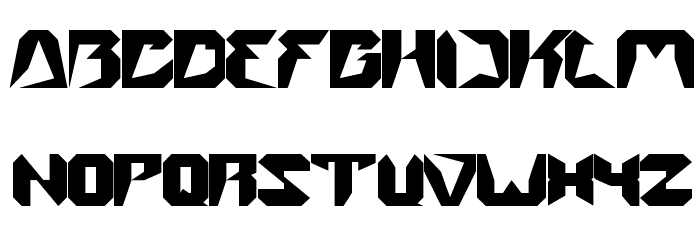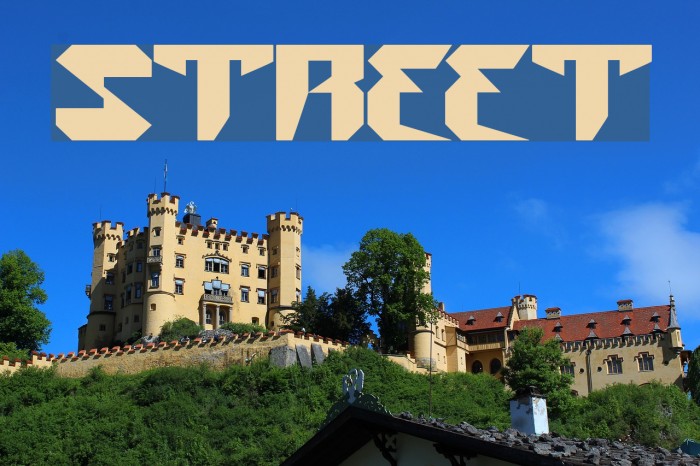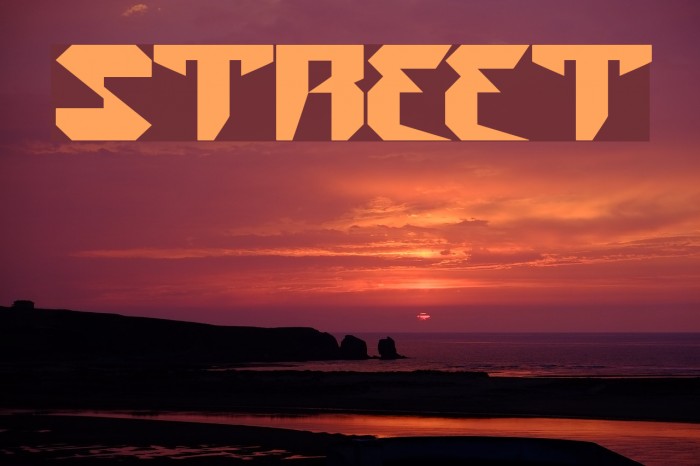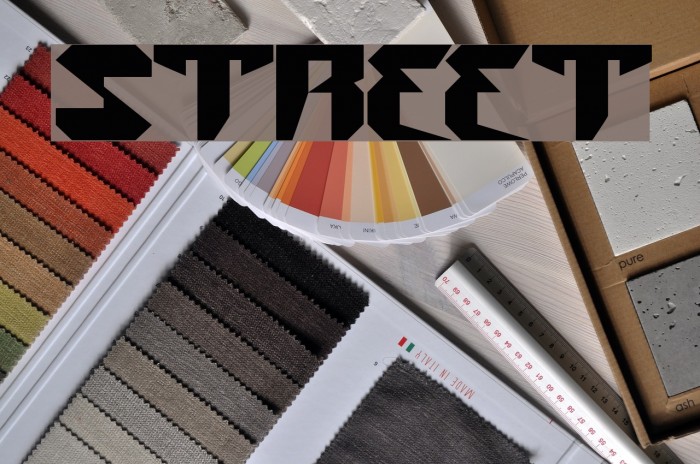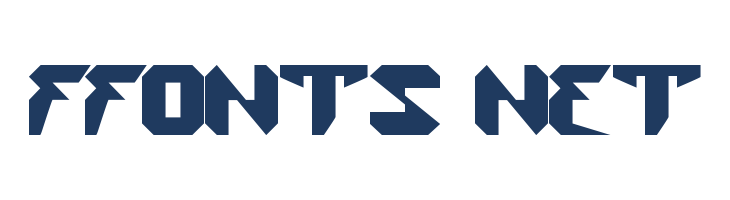
street Font
This font features a bold and angular design, characterized by sharp edges and geometric shapes. The letters are constructed with a futuristic and aggressive style, making them stand out with a strong visual impact. The uppercase characters are particularly striking, with each letter exhibiting a unique form that maintains consistency across the alphabet. The font's design is reminiscent of street art or graffiti, lending it a rebellious and edgy feel. The overall appearance is dynamic and energetic, suitable for projects that require a bold statement.
A bold, angular font with a futuristic and edgy style.
- Proposed Projects: Ideal for street art designs, urban-themed posters, video game graphics, and branding that requires a bold, modern look.